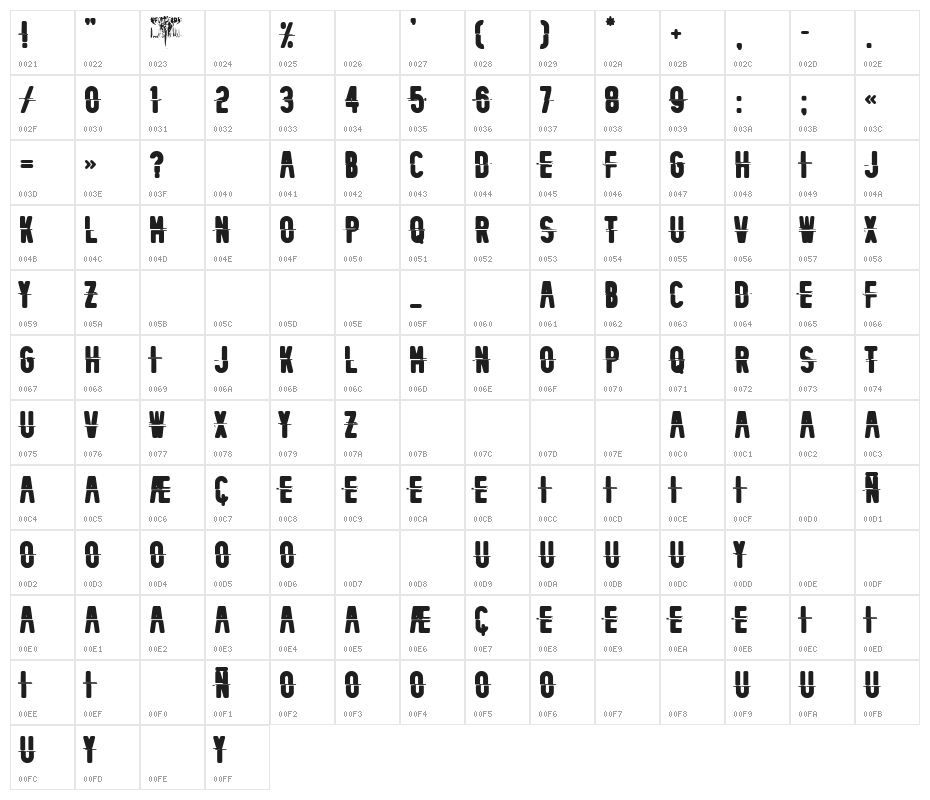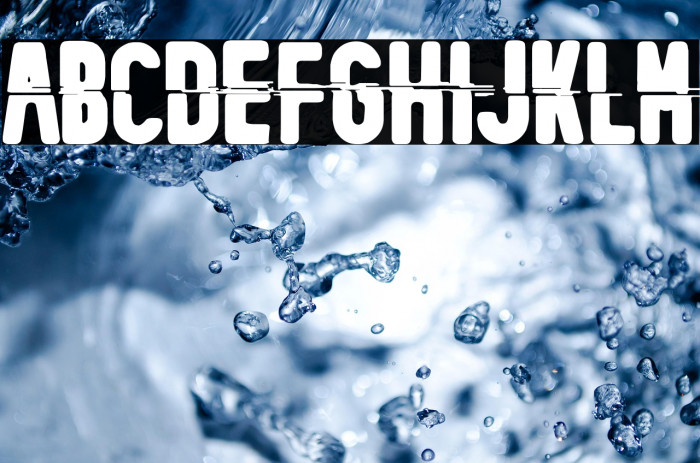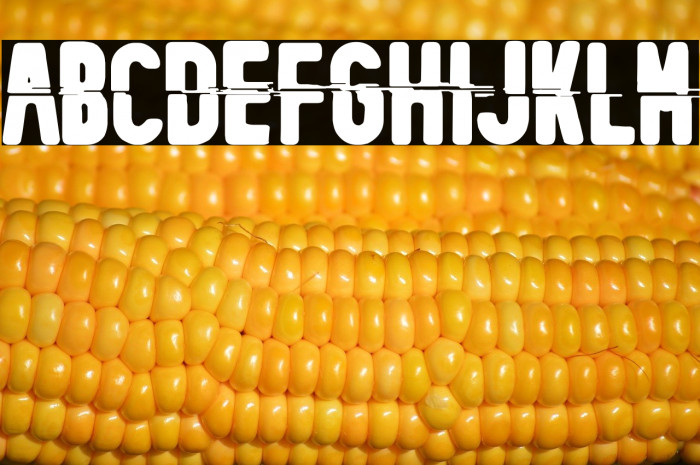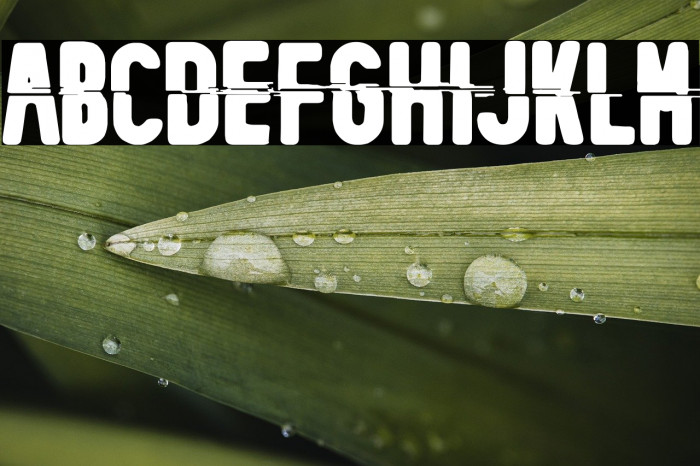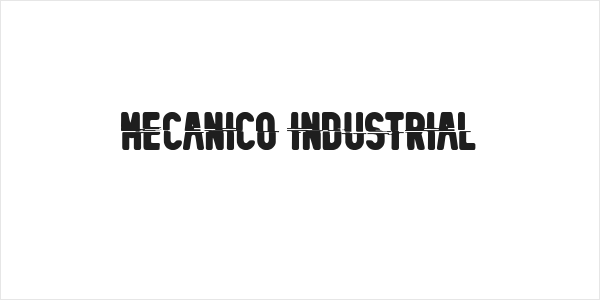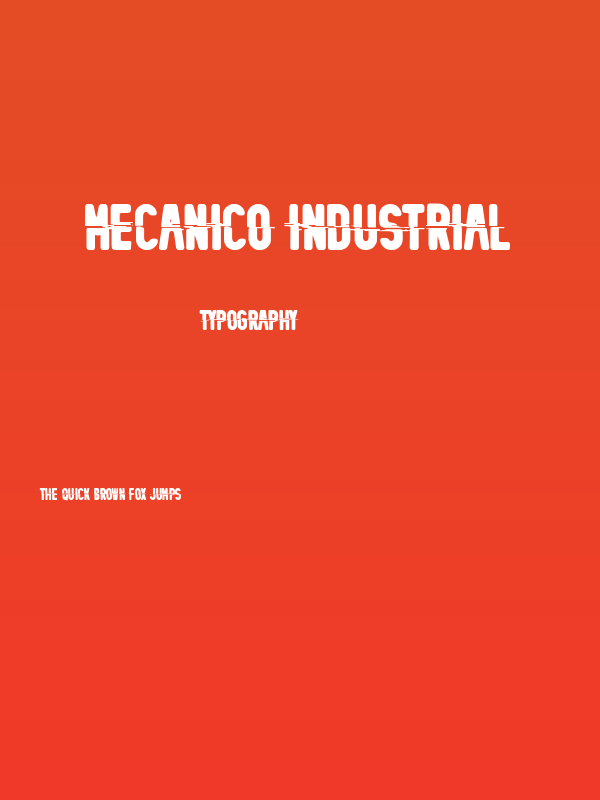
Mecanico Industrial Font
Mecanico Industrial Description
This font features a bold, industrial design with a distinct mechanical flair. The characters are robust and solid, with a unique horizontal line cutting through each letter, adding a dynamic and edgy feel. The uppercase letters are uniform in height, creating a strong visual impact. The numerals and special characters maintain the same boldness and style, ensuring consistency throughout the typeface. This font's design is reminiscent of industrial machinery and urban environments, making it ideal for projects that require a gritty, modern aesthetic.
| Use Case | Logos, Posters, Branding |
| Proposed Projects | Ideal for urban-themed posters, industrial branding, edgy apparel designs, and modern logos. |